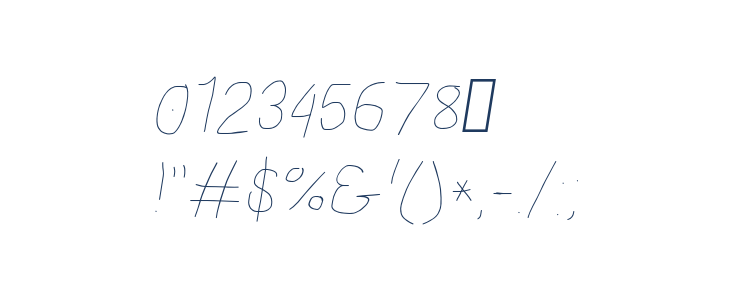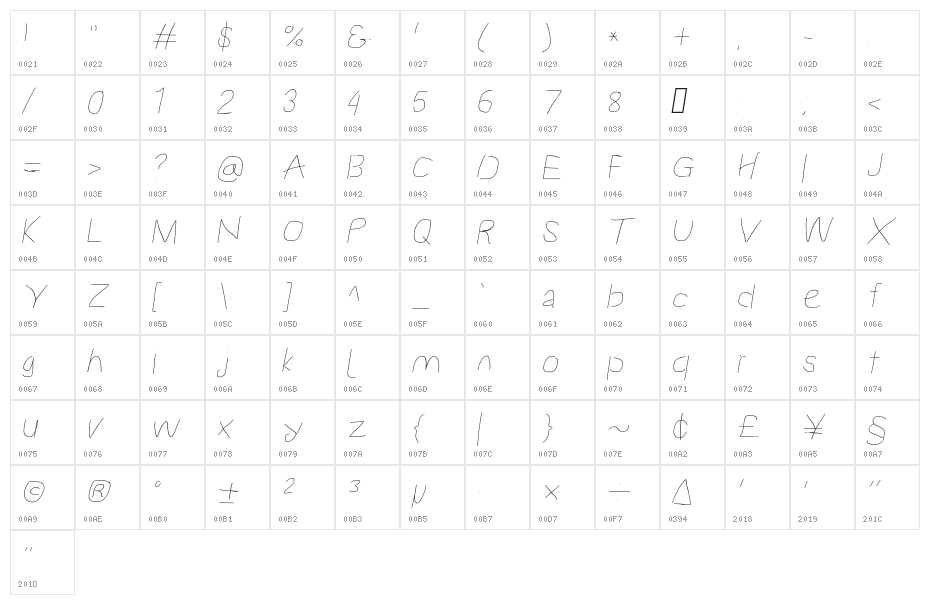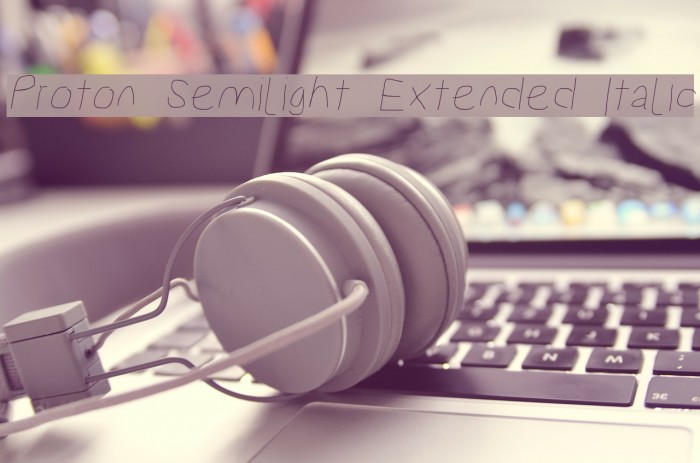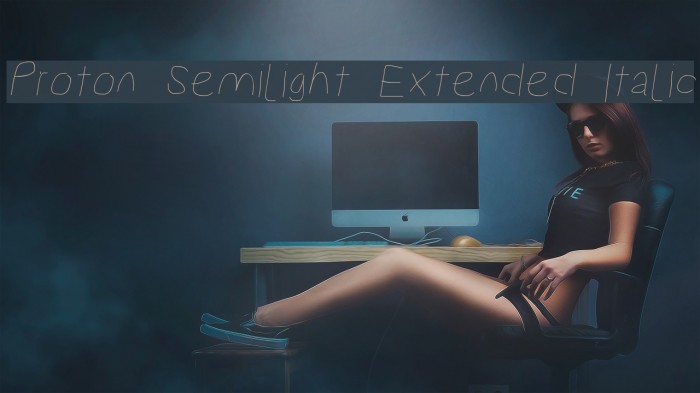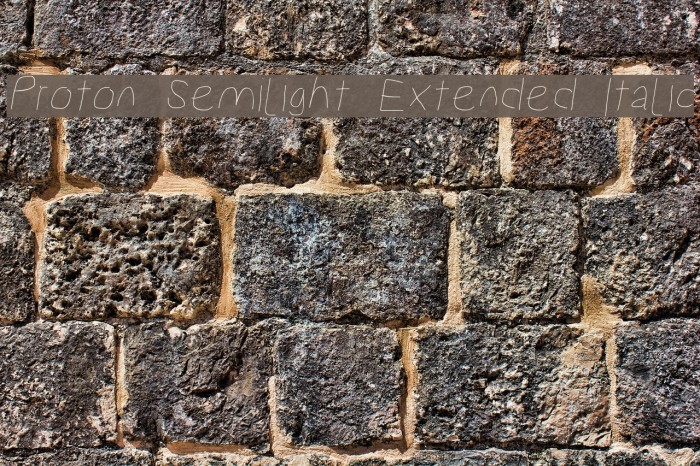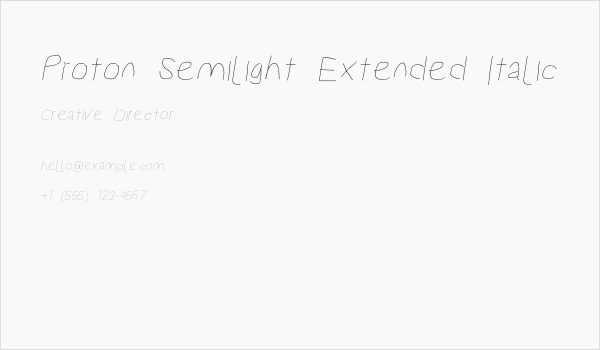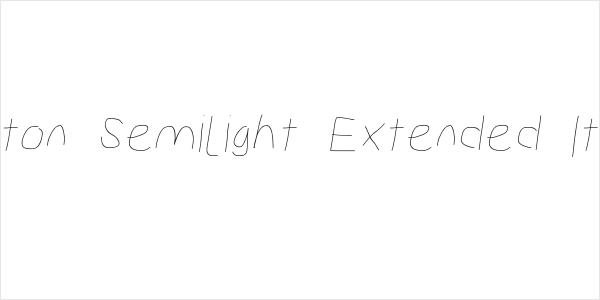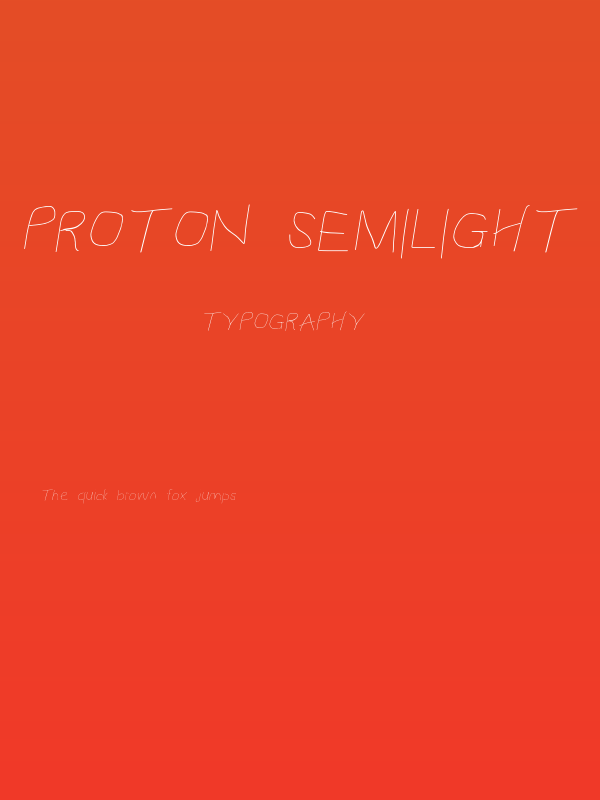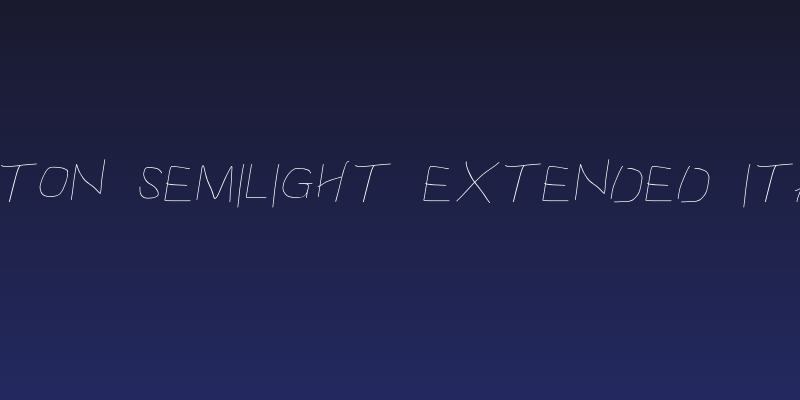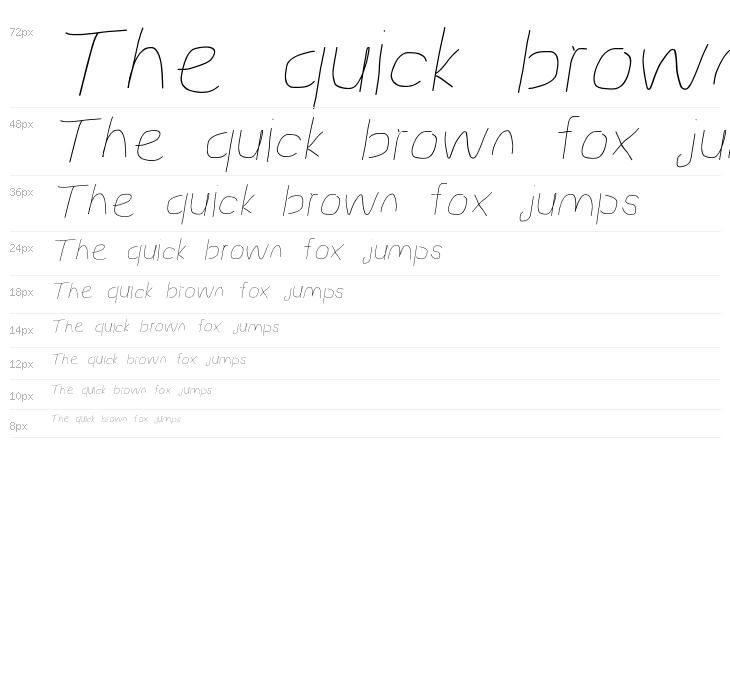
Proton Semilight Extended Italic Font
Proton Semilight Extended Italic Description
This font features a sleek and modern design with a semi-light weight, offering an extended and italicized style. The characters are elegantly elongated, providing a sense of motion and fluidity. The strokes are consistent in thickness, contributing to a clean and sophisticated appearance. The uppercase letters are tall and slightly narrow, while the lowercase letters maintain a balanced proportion. Numbers and special characters are designed with the same attention to detail, ensuring a cohesive look across all elements. The overall aesthetic is contemporary, making it suitable for a variety of design applications.